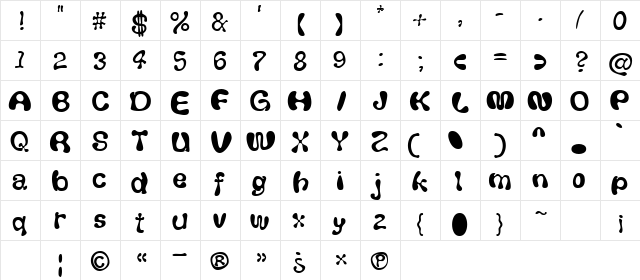
Fluf Regular
Design Context for Fluf Typeface
Fluf is a composed and adaptable typeface that performs quietly and consistently across a wide range of design contexts.